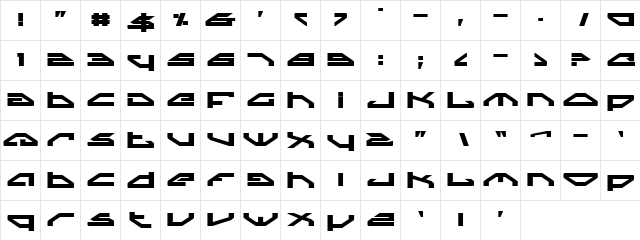
Spylord Bold Expanded BoldExpanded
Design Context for Spylord Bold Expanded Typeface
Spylord Bold Expanded is a composed and adaptable typeface that performs quietly and consistently across a wide range of design contexts. Its bold stroke weight gives it real presence on the page.